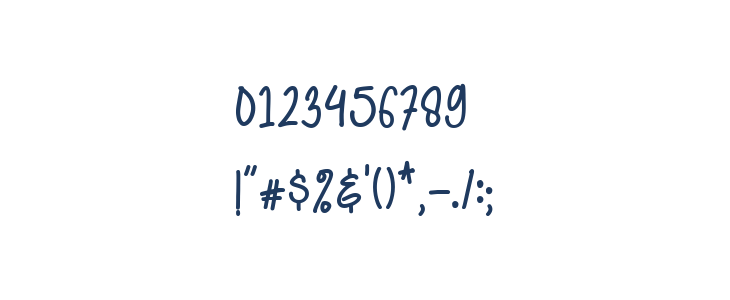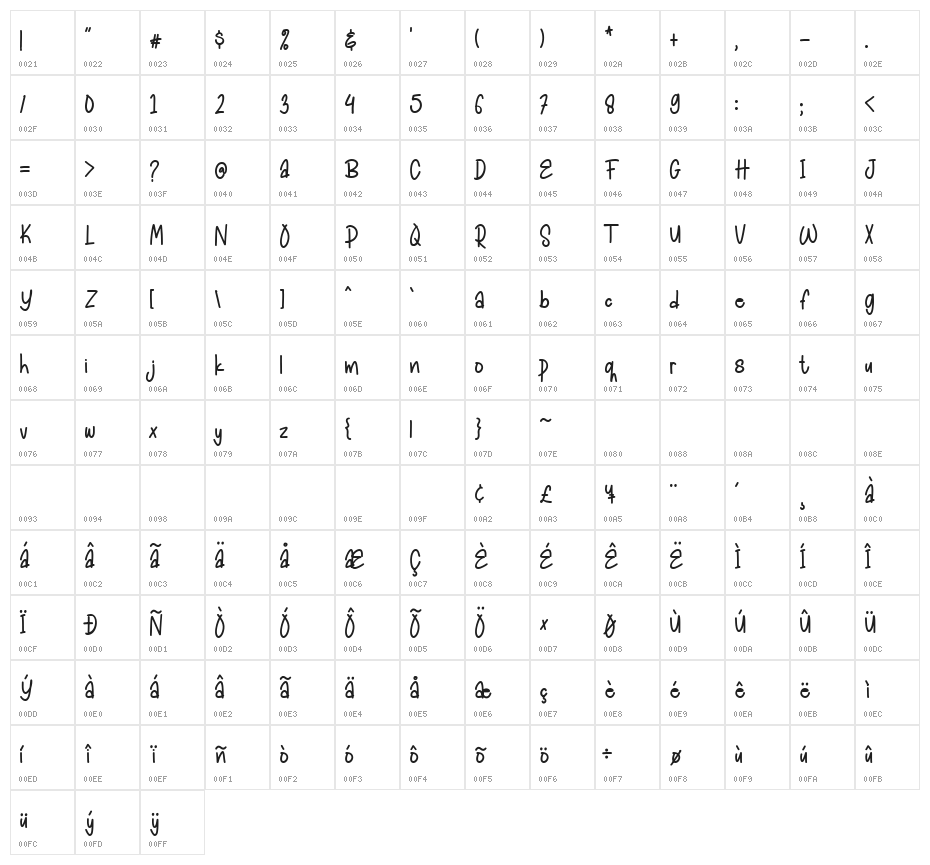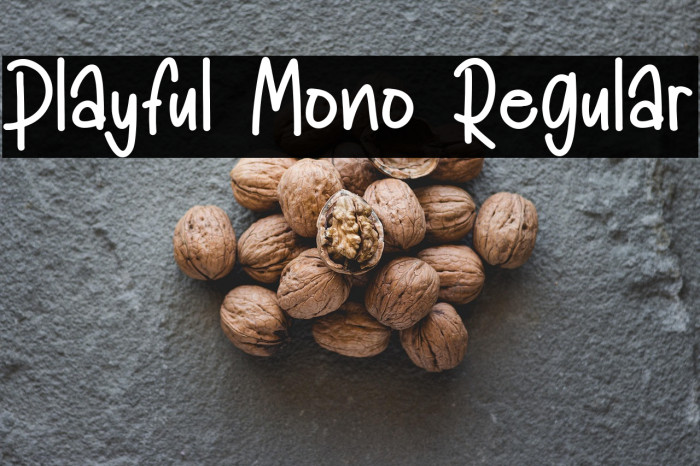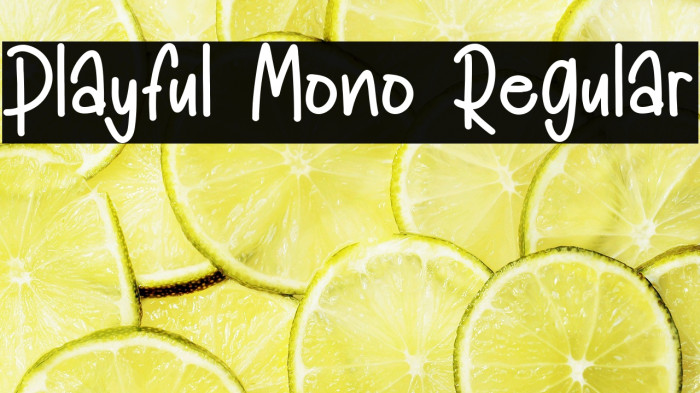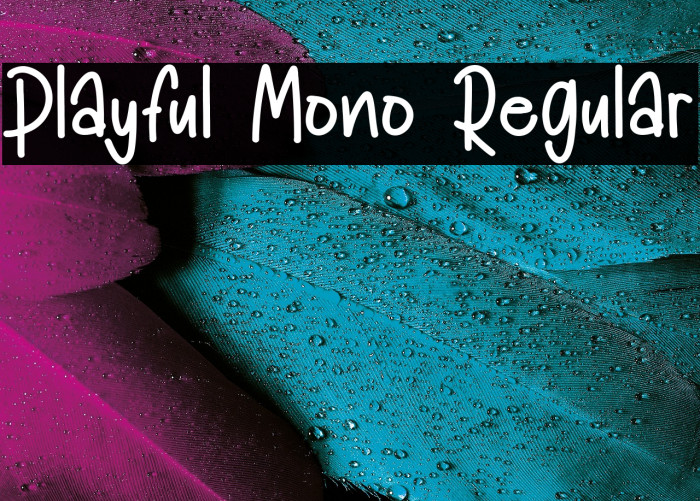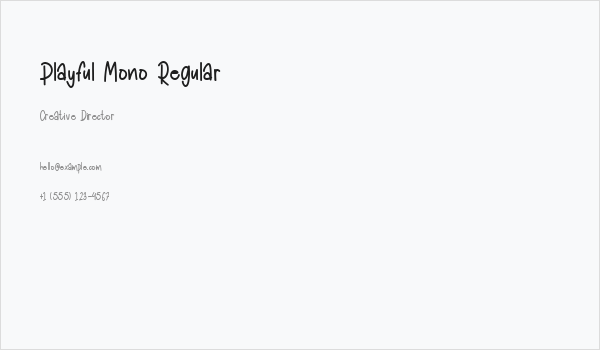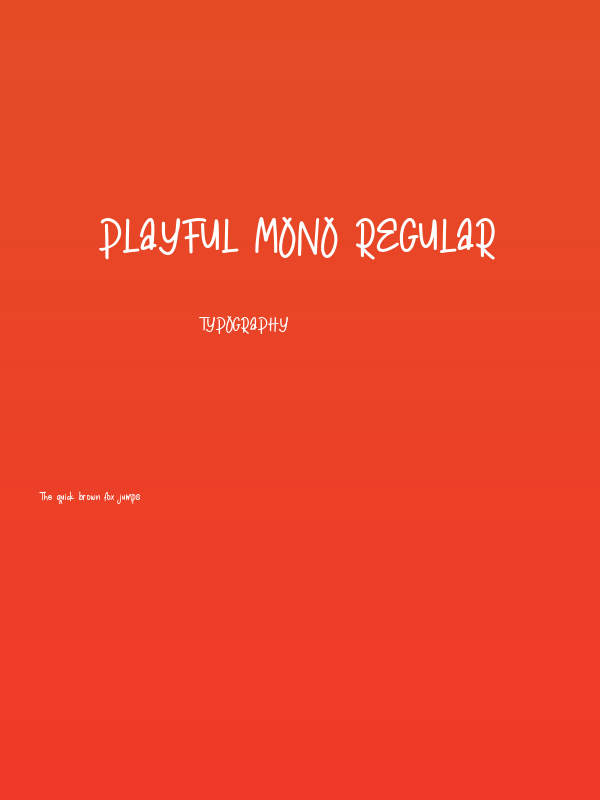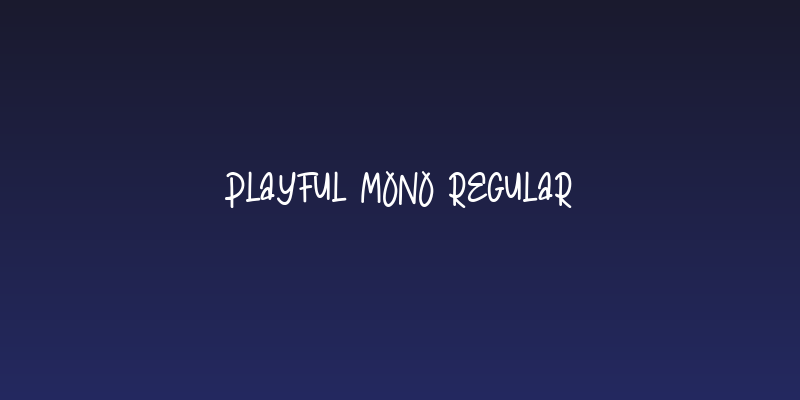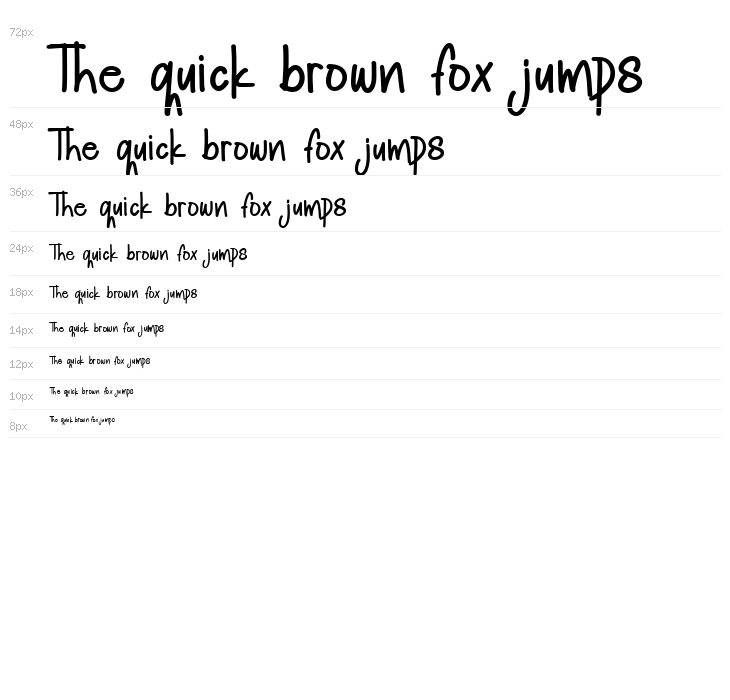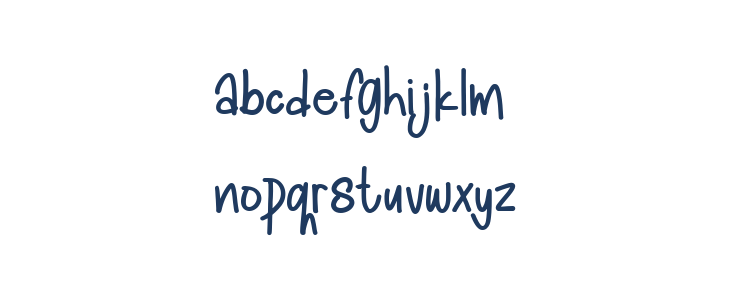
Playful Mono Regular Font
Playful Mono Regular Description
This font exudes a playful and casual vibe with its handwritten style. The characters are rounded and slightly irregular, giving it a friendly and approachable appearance. The uppercase and lowercase letters maintain a consistent flow, while the numerals and special characters are designed to complement the overall style. The strokes are smooth and have a medium thickness, contributing to its legibility and charm. This font is ideal for projects that require a touch of whimsy and personality, making it suitable for creative and informal applications.
| Proposed Projects | Ideal for children's books, greeting cards, playful branding, and casual invitations. |